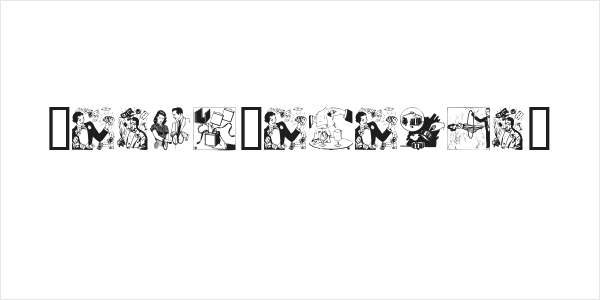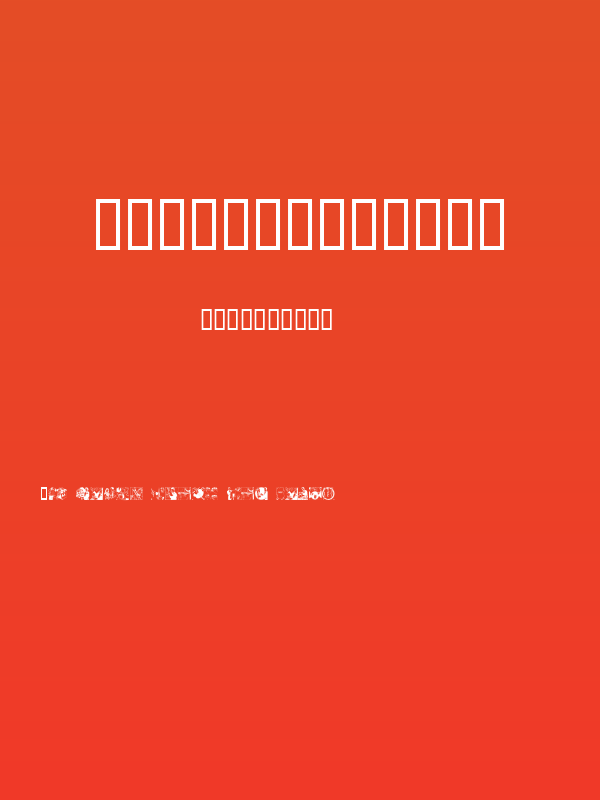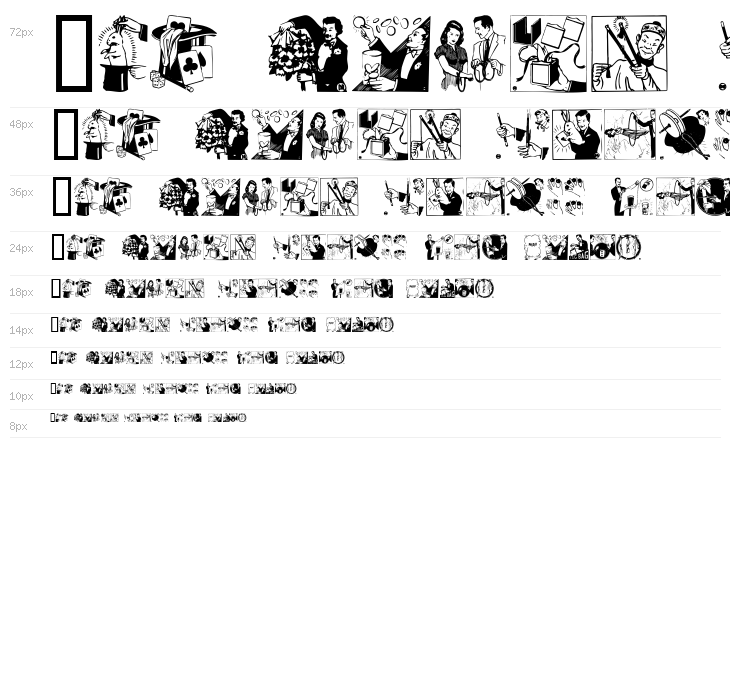
MagicCatalog2 Font
A decorative display font featuring comic-style illustrations within each character, depicting various scenes and figures in a retro, black-and-white style. Each glyph is a unique image rather than a traditional letterform, making it highly illustrative and thematic.
| Overall Style | Decorative, Retro, Comic |
| Use Case | Logos, Headlines, Posters, Themed graphics |
| Proposed Projects | Posters, comic book titles, themed event invitations, novelty merchandise, creative branding. |